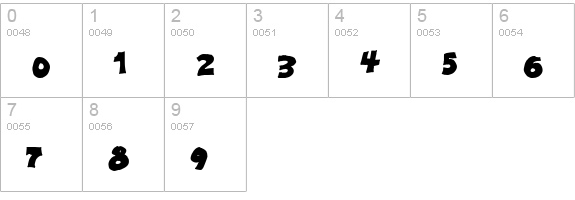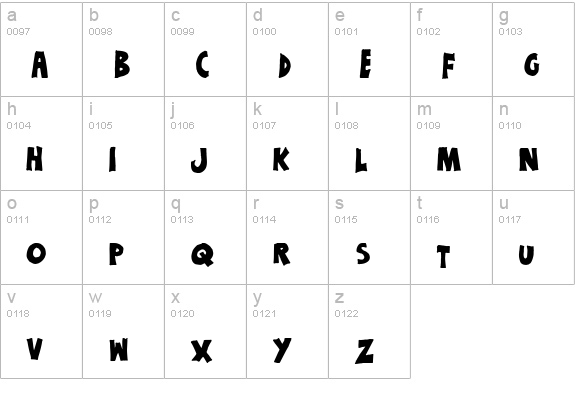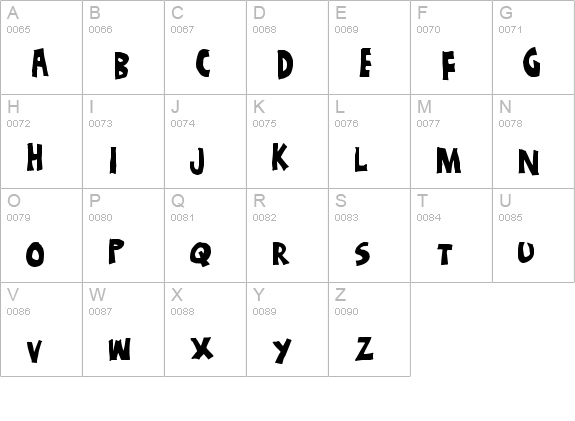
Just a dream Solid Font Details
Just a Dream Solid font is a beautifully designed typeface that exudes elegance and sophistication. Its solid and bold appearance makes it perfect for creating eye-catching headlines, titles, and logos. The strong, clean lines of this font give a modern and timeless feel to any design project. What makes Just a Dream Solid font even more appealing is that it is completely free to download at FontsMarket.com. You can easily access this stunning font and elevate your designs without any cost. Whether you're working on a personal project or a professional design, Just a Dream Solid font is a versatile and striking choice that is sure to make a statement. Download it now and unlock the potential of your creative vision.